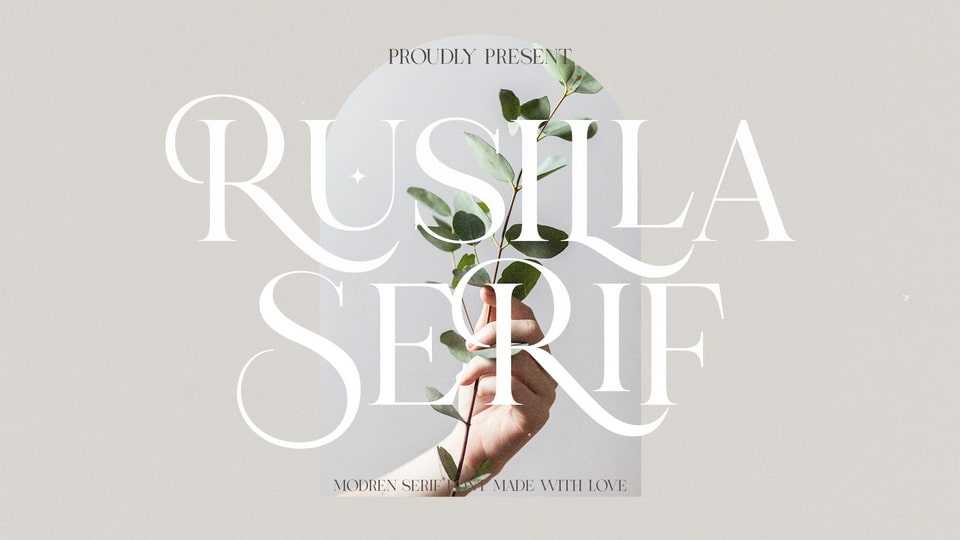
Download Rusilla Serif font, an elegant and sophisticated serif typeface. Perfectly to be applied to the other various formal forms such as logos, magazines, fashion, wedding and so on.